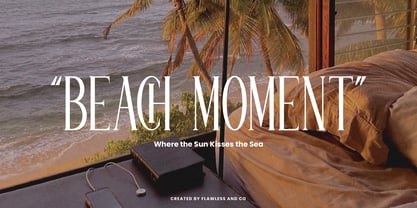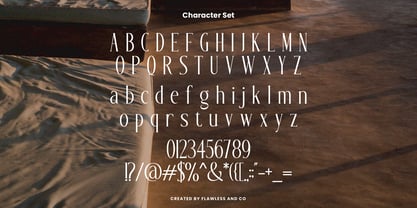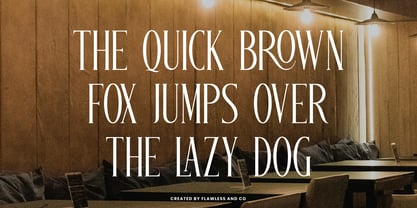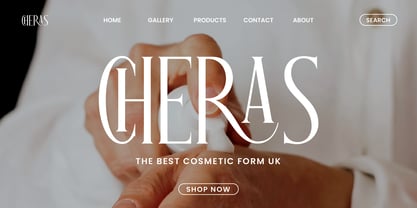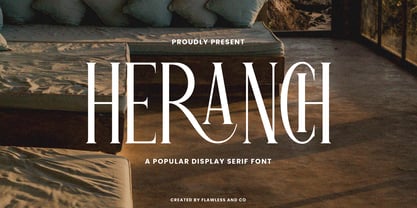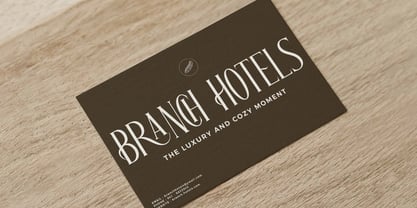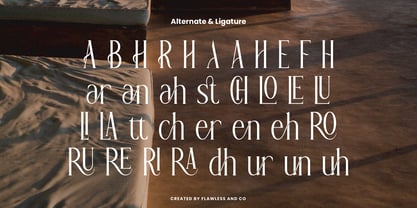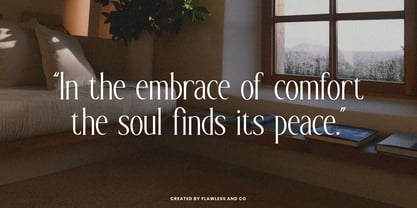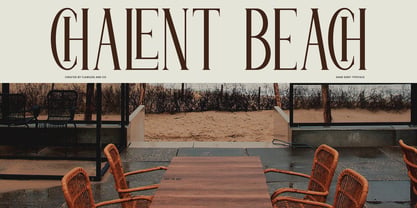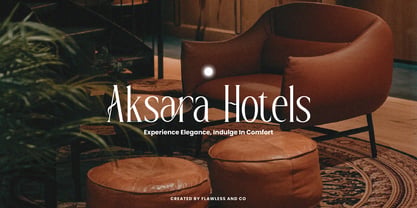
Heranch
A família de fontes Heranch foi desenhada por Achmad Yani e publicada pela Flawlessandco. Heranch contém 1 estilos. Saiba mais sobre esta família
Heranch is a refined display serif font known for its graceful curves and elegant presence. Designed for visual impact without relying on heavy weight, Heranch offers a sophisticated balance of classic serif tradition and contemporary style. Perfect for editorial design, fashion branding, invitations, logos, and upscale packaging, it delivers timeless beauty with a modern twist. The delicate serifs and high contrast details make Heranch a versatile choice for designers who value elegance and clarity.
Features :
Multilingual, Uppercase alphabet A-Z, Lowercase alphabet a-z, Numbers 0-9, Some punctuation, Alternates & Ligatures